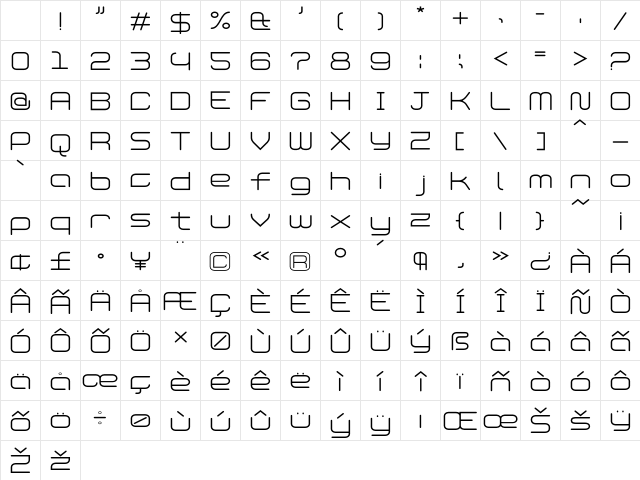
Complete Phat Light glyph index. Displaying only characters natively supported by Phat Light font.
Phat is a composed and adaptable typeface that performs quietly and consistently across a wide range of design contexts. Its slender proportions lend an understated elegance to any composition.